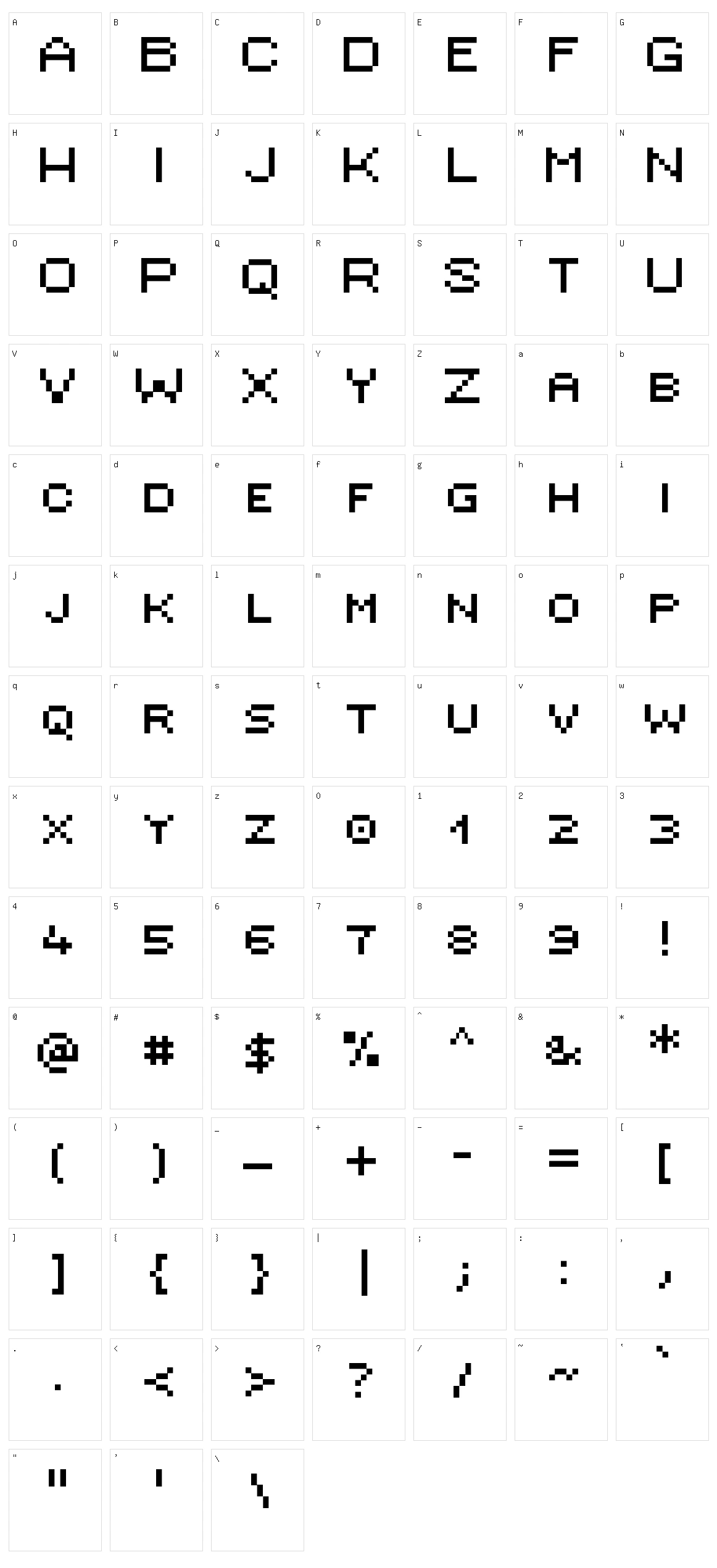
Ambitsek
Designed by: Ambrus Weishappel
Ambitsek is a simple looking and very readable "small caps" style cross-platform bitmap font.
This font is optimized to 8px size with no anti-aliasing. It contains an almost complete character
set (uppercase and "lowercase" letters, accented characters, punctuation, signs, symbols, arrows,
elements etc.), includes Western, Central and Eastern European and also basic Greek chars. As I
mentioned above, it's a "small caps" style font: it contains "lowercase" and uppercase chars too
(i.e. caps and larger caps), but if you want, you can use only the uppercase or only the lowercase
letters, as you like it.